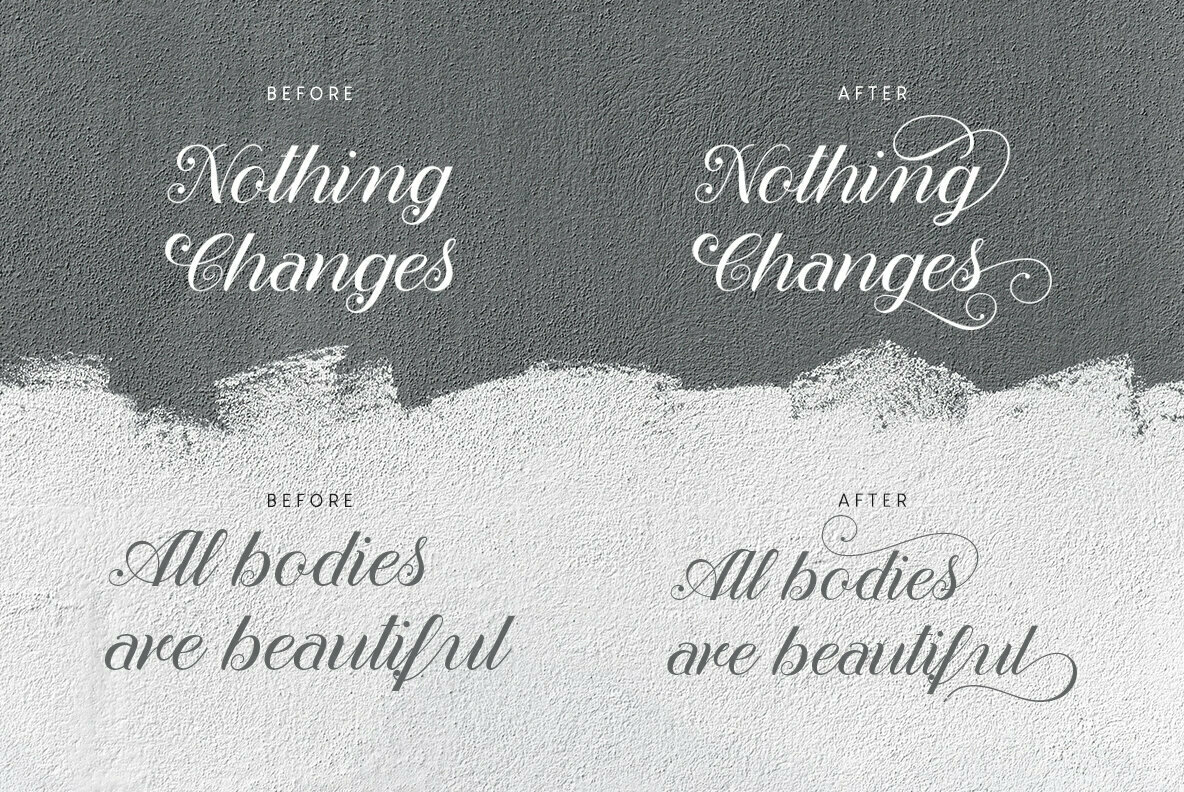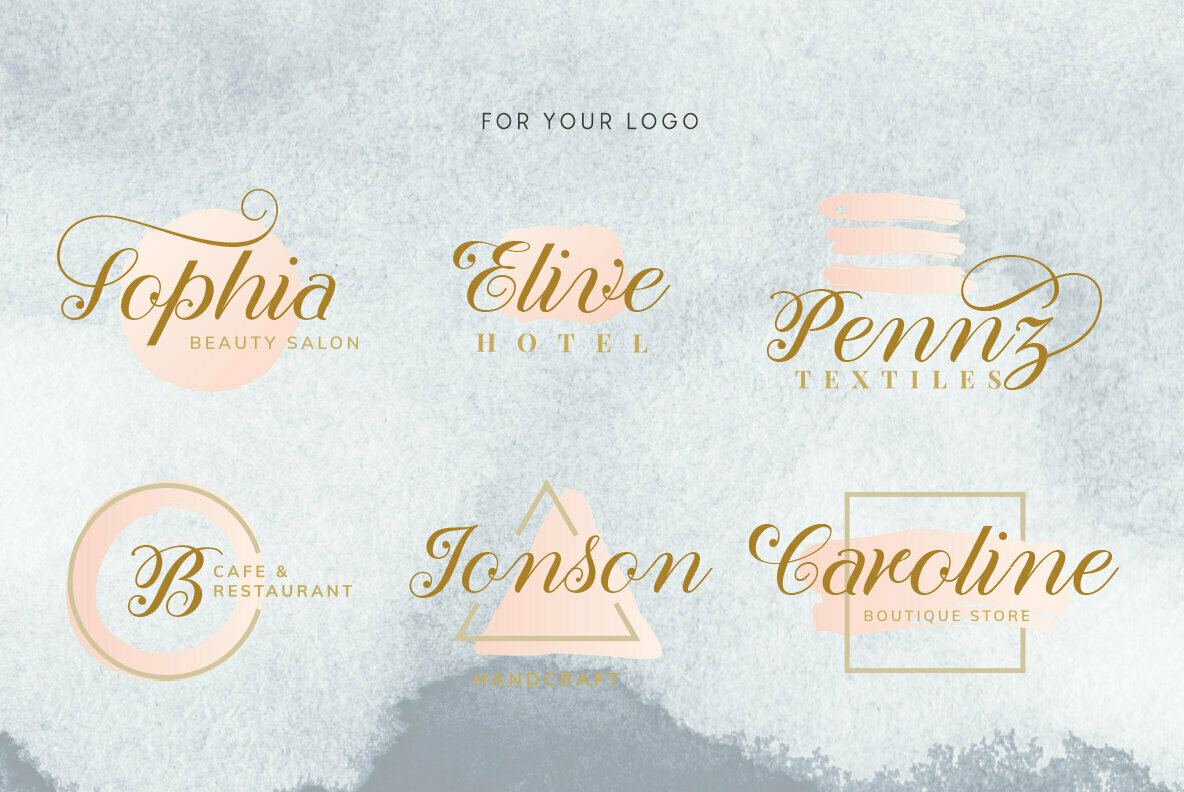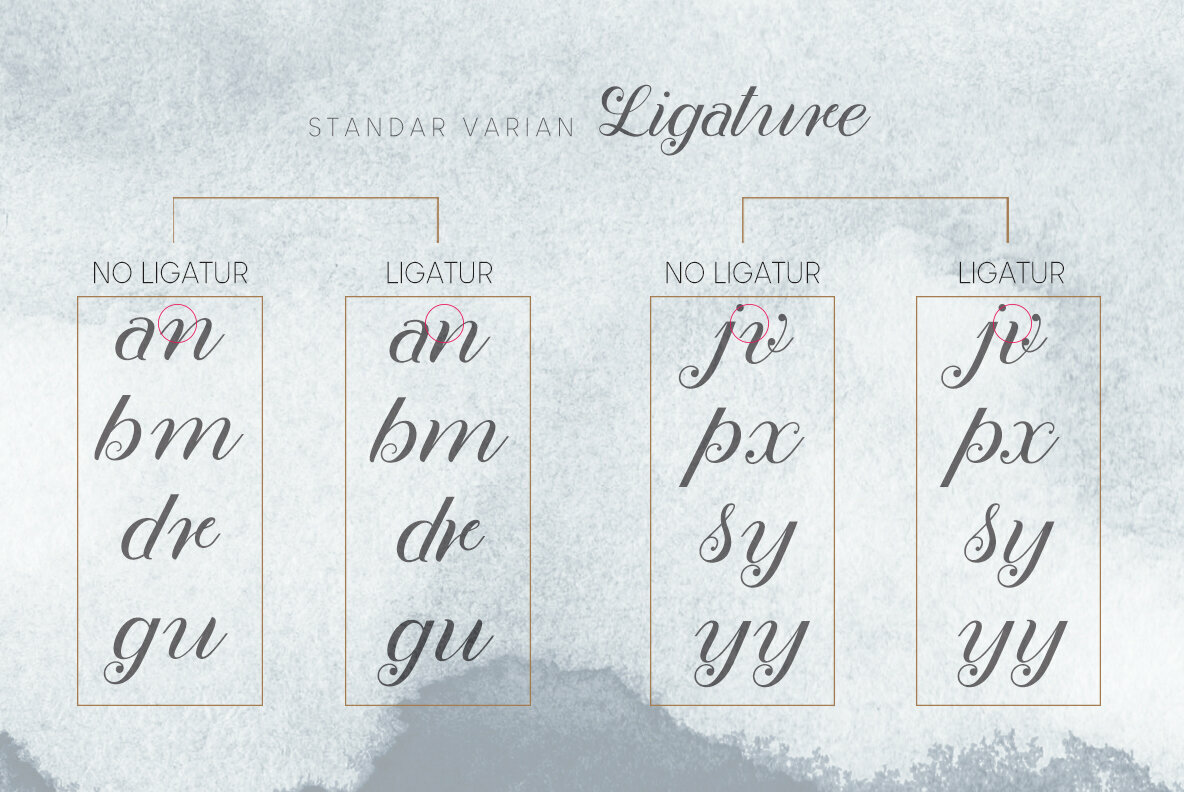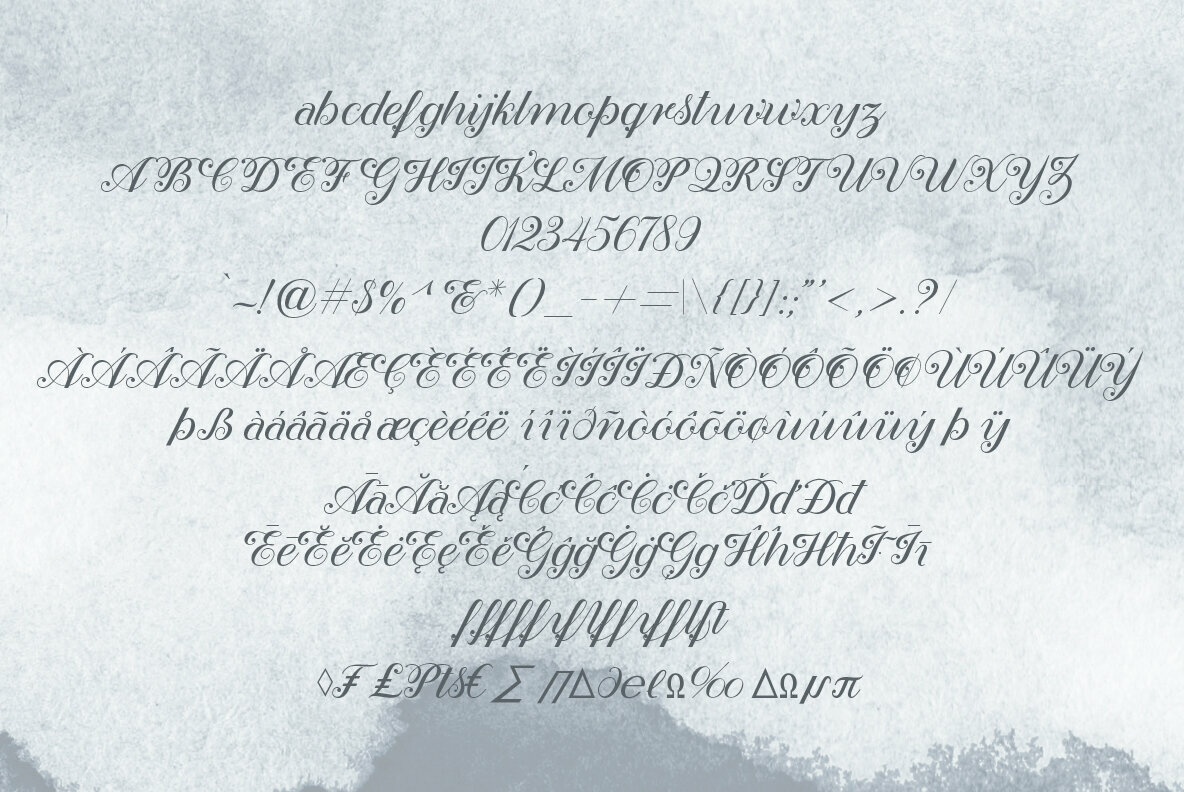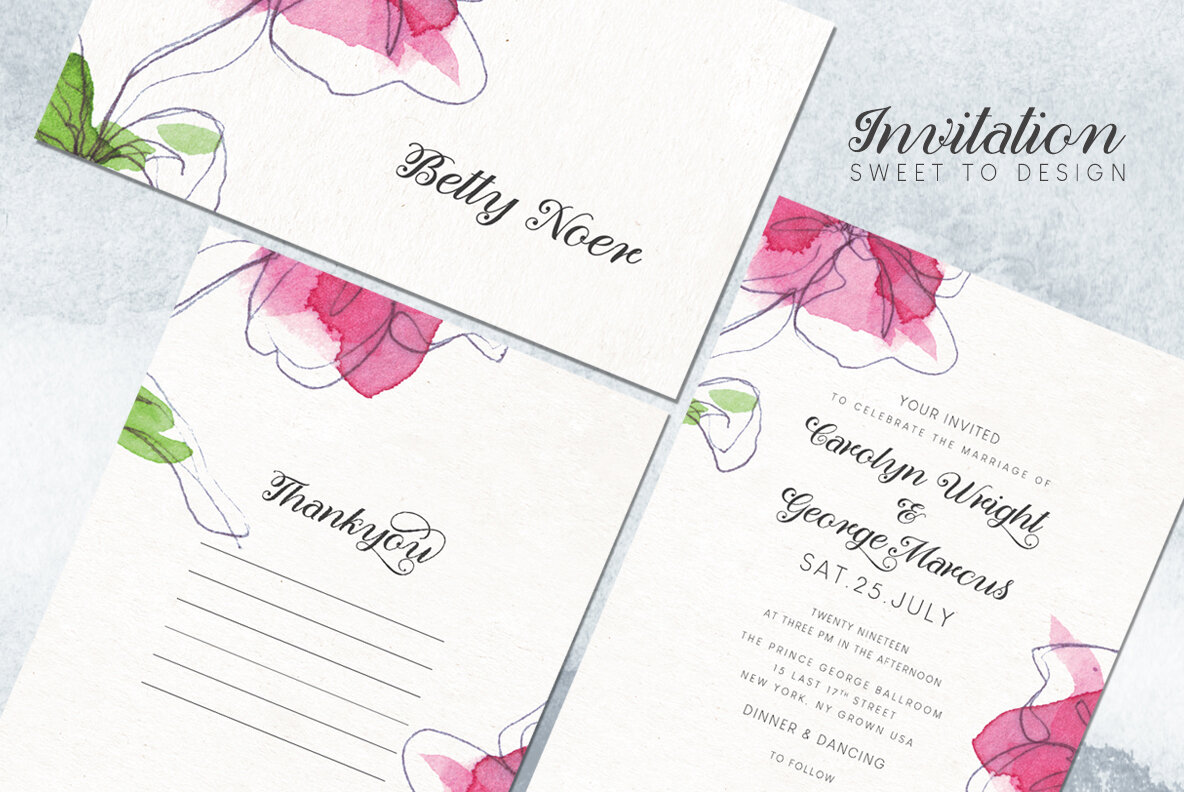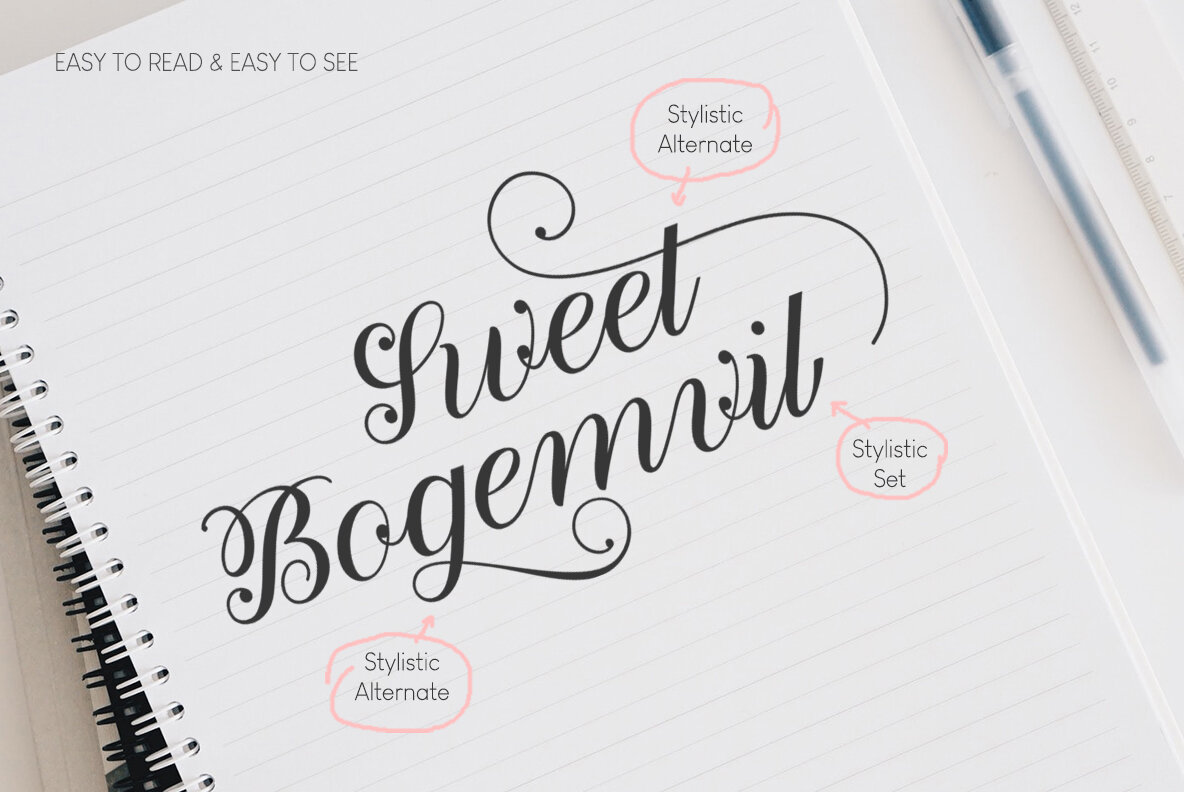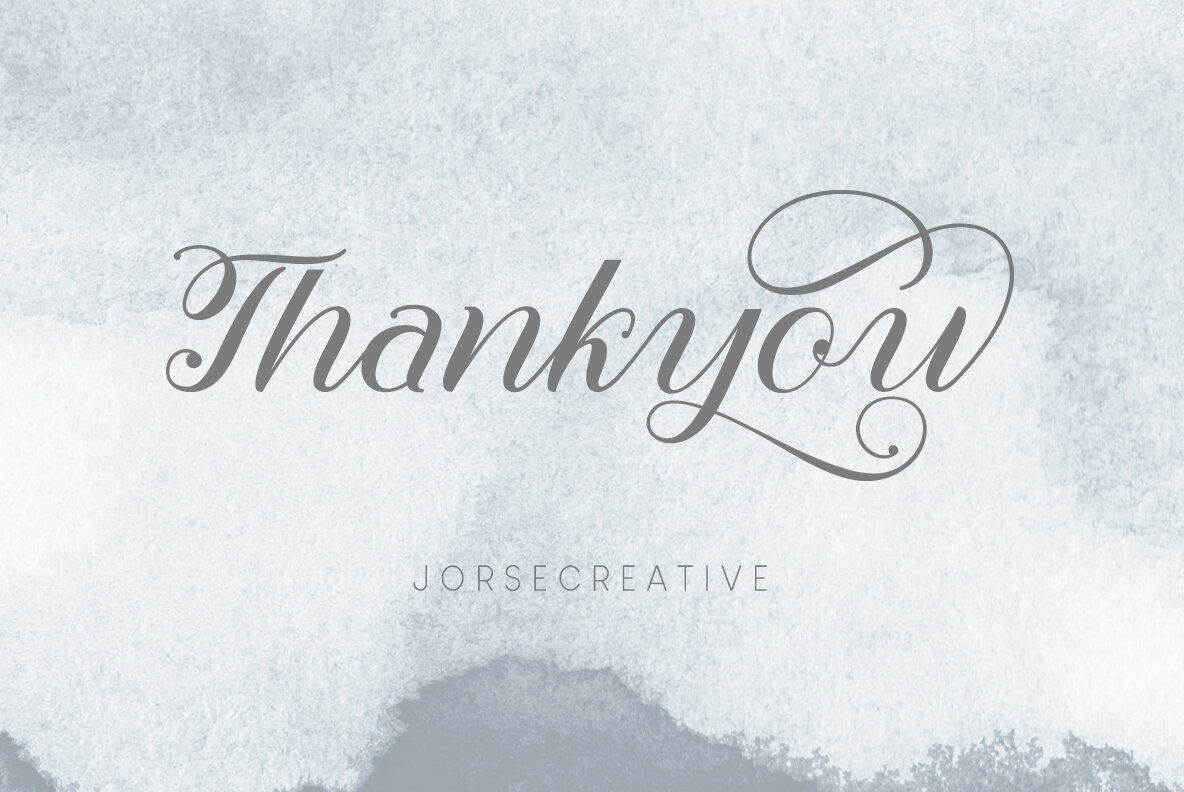
Taranum Font
Taranum
Infuse a sense of elegance and personalized style into your projects with Taranum, a meticulously-crafted modern calligraphy font. Designed for versatility, this font is ideal for a range of applications, from branding and web titles to wedding invitation cards and drink labels. Taranum ensures comprehensive visual language support with its inclusions of numbers, symbols, and punctuation marks. The presence of initial and final swashes in the lowercase letters enhances its authentic calligraphic appeal. Access the full potential of Taranum’s features with smart OpenType programs such as Adobe Photoshop, Illustrator, and InDesign, as well as Corel Draw and Microsoft Office, offering seamless integration and versatility in your design process.Taranum: Modern Calligraphy with an Individual Flair